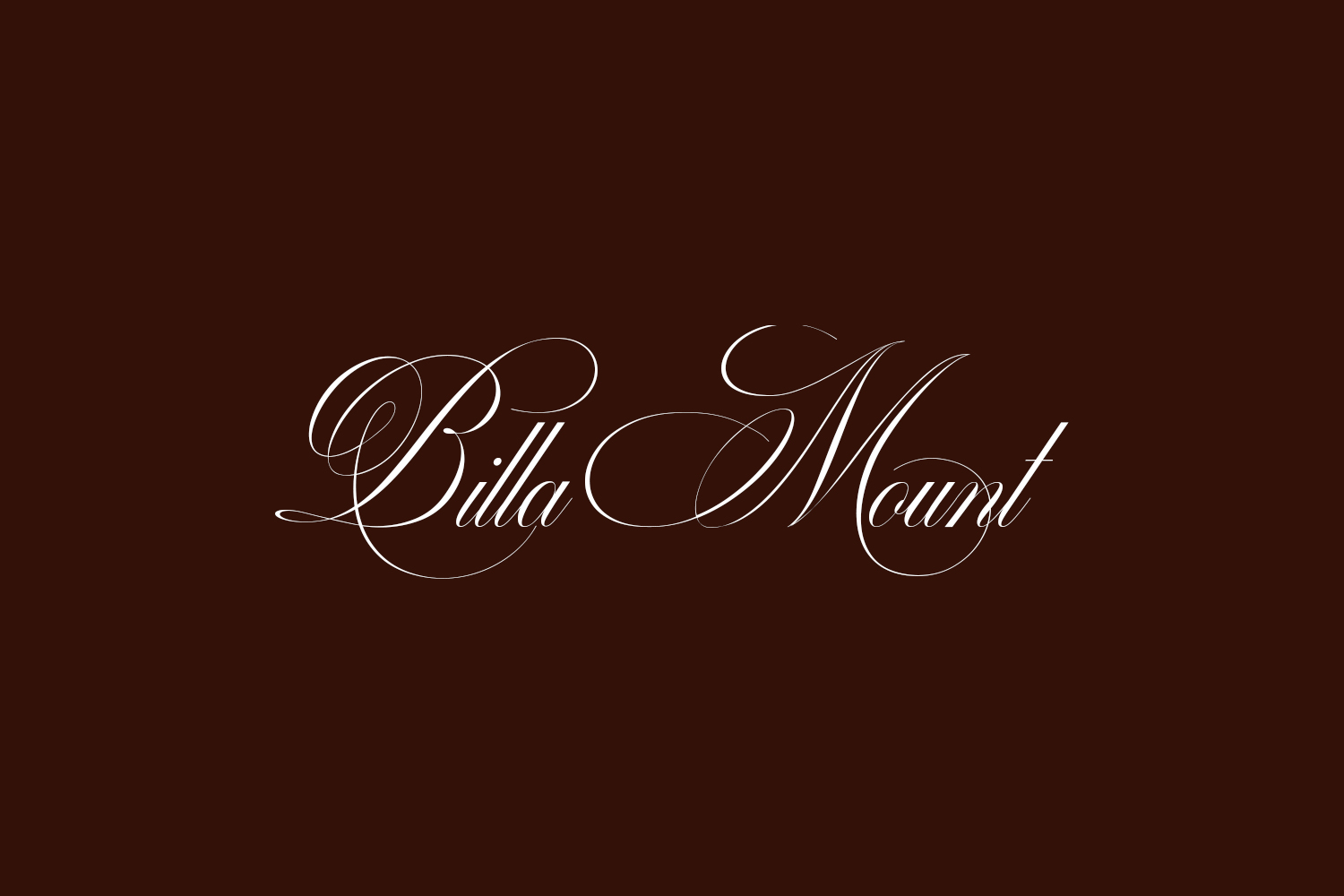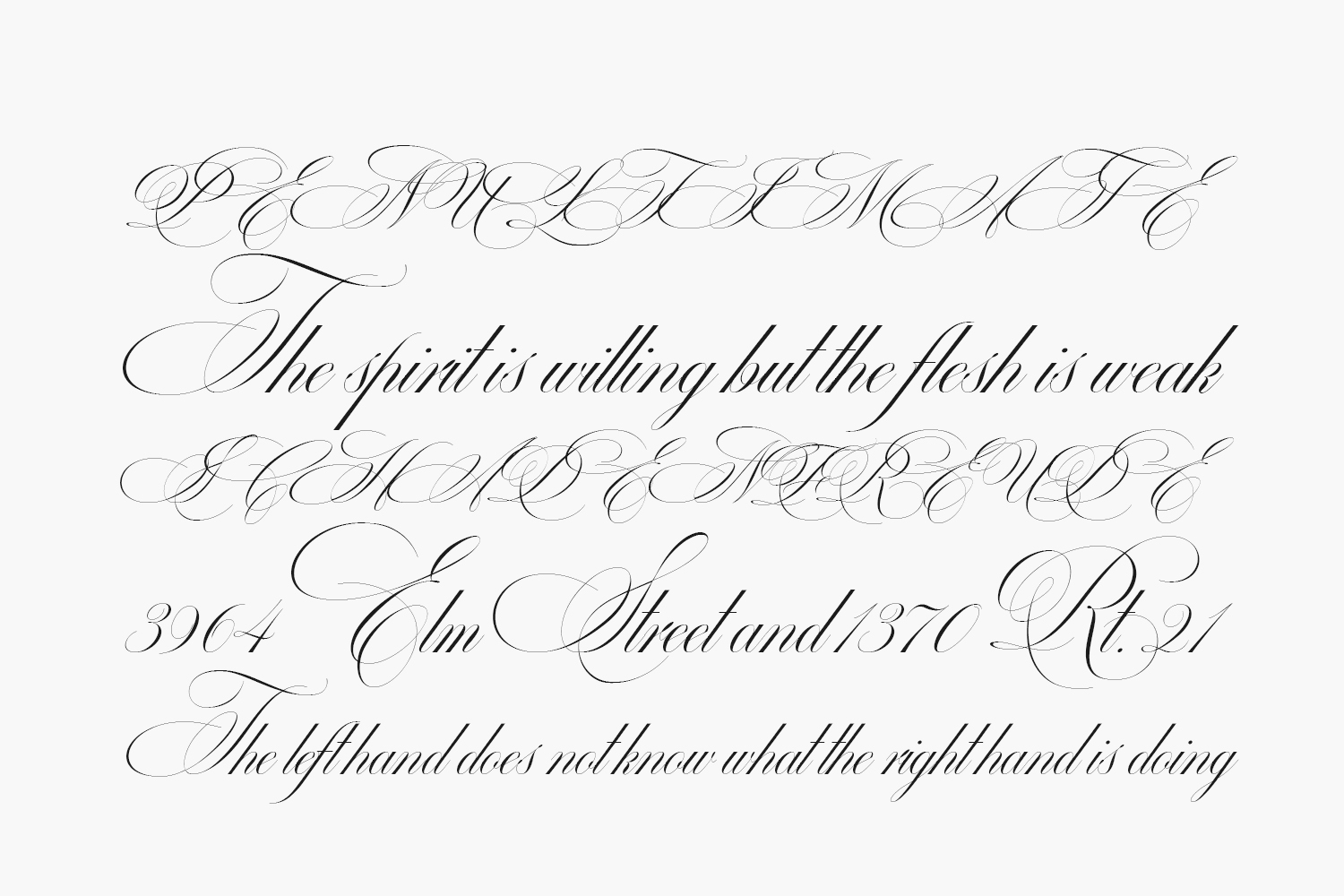
Immerse yourself in the world of elegance with Billa Mount Free Font, a script font that epitomizes luxury and modernity. This exquisite typeface is guaranteed to captivate your senses with its ravishing style, allowing you to create breathtaking designs.
Indulge in the allure of Billa Mount as you embark on your creative journey. Whether you’re crafting stunning logos, designing eye-catching branding materials, or working on any other project, this font will elevate your work to new heights. Billa Mount Free Font is free for personal use only. Please purchase the full version for commercial use.